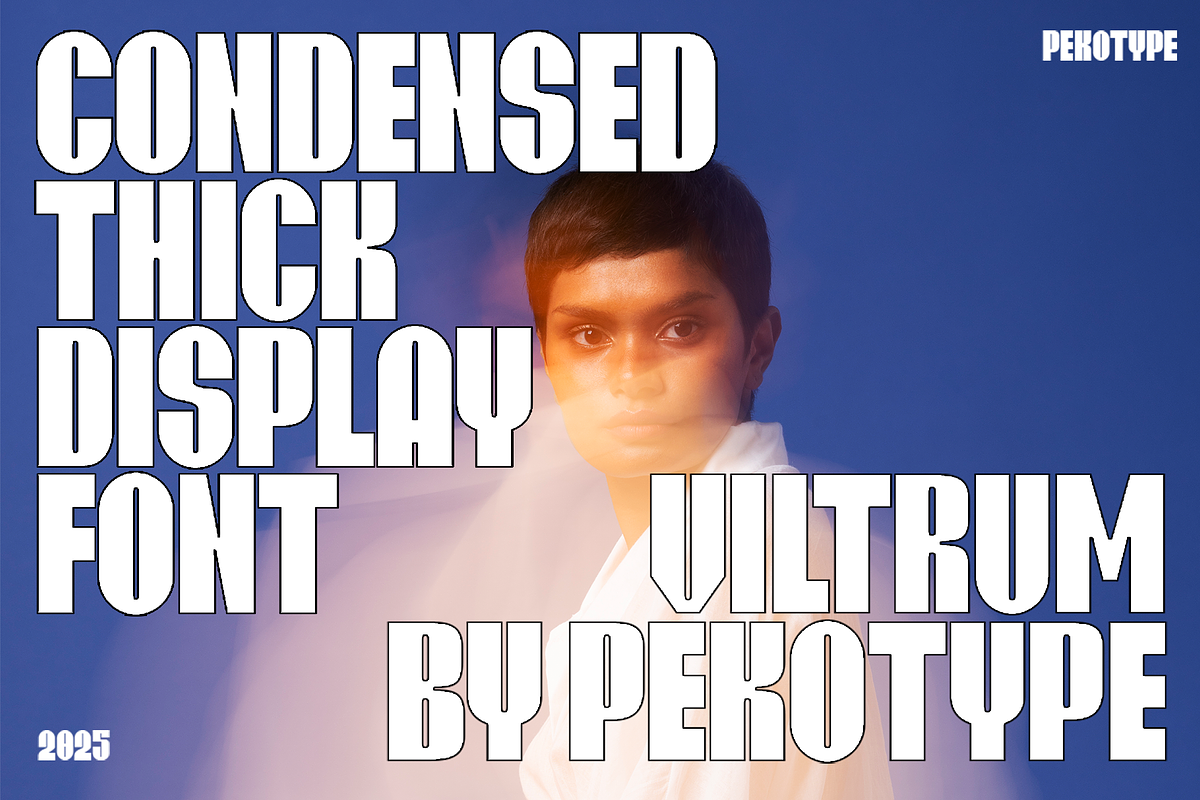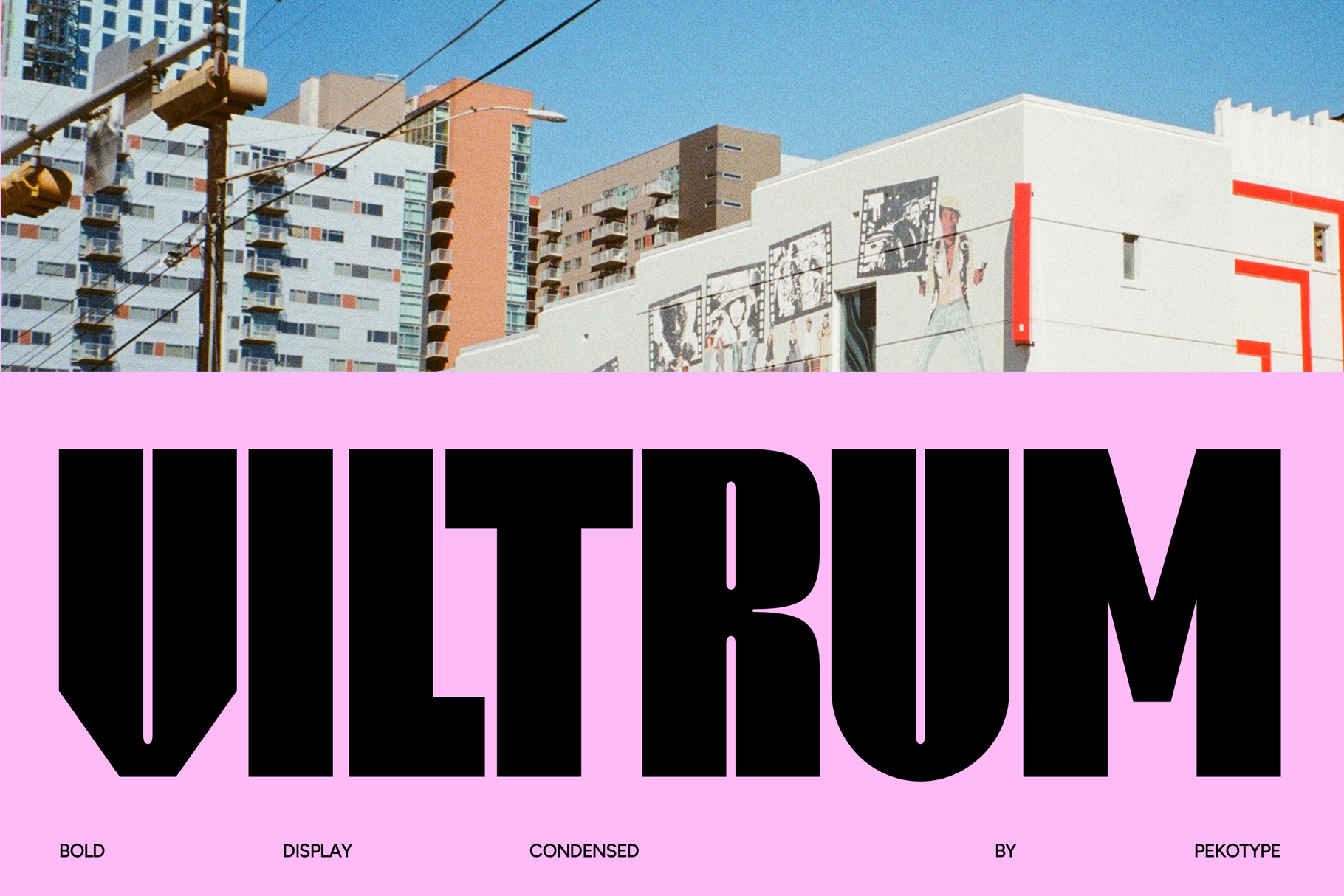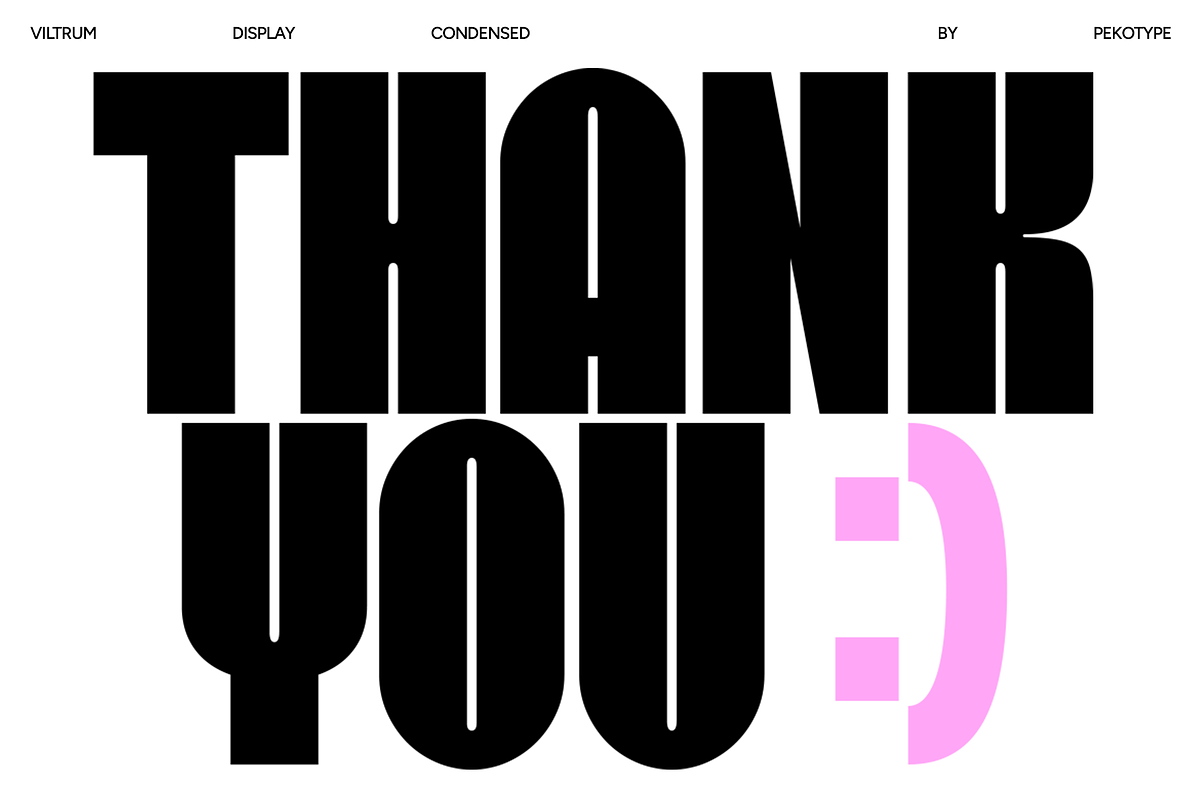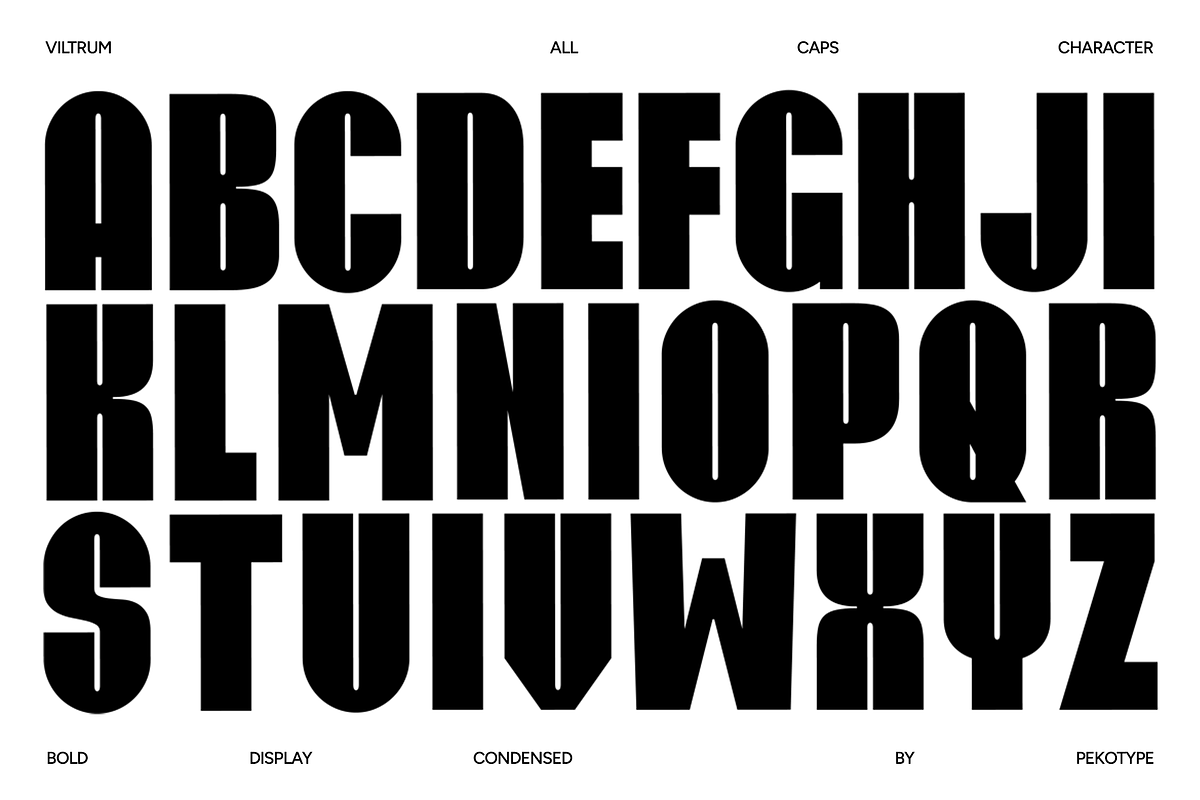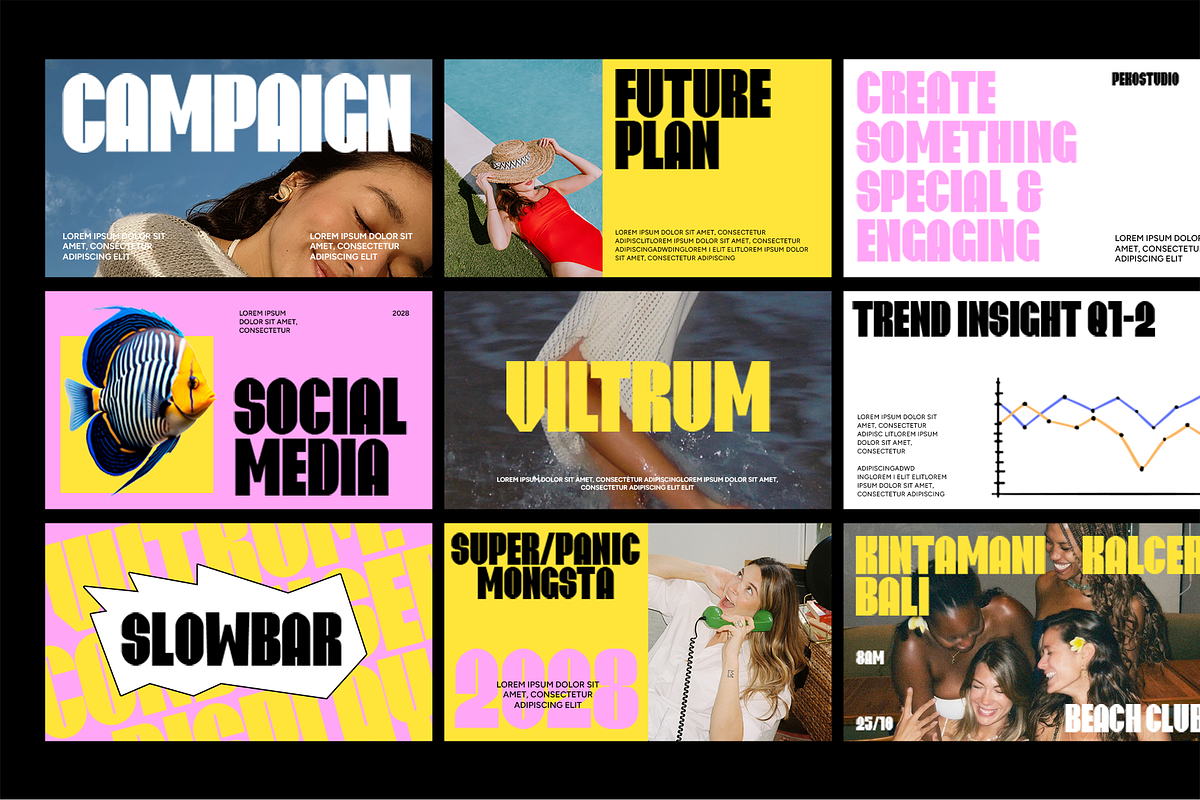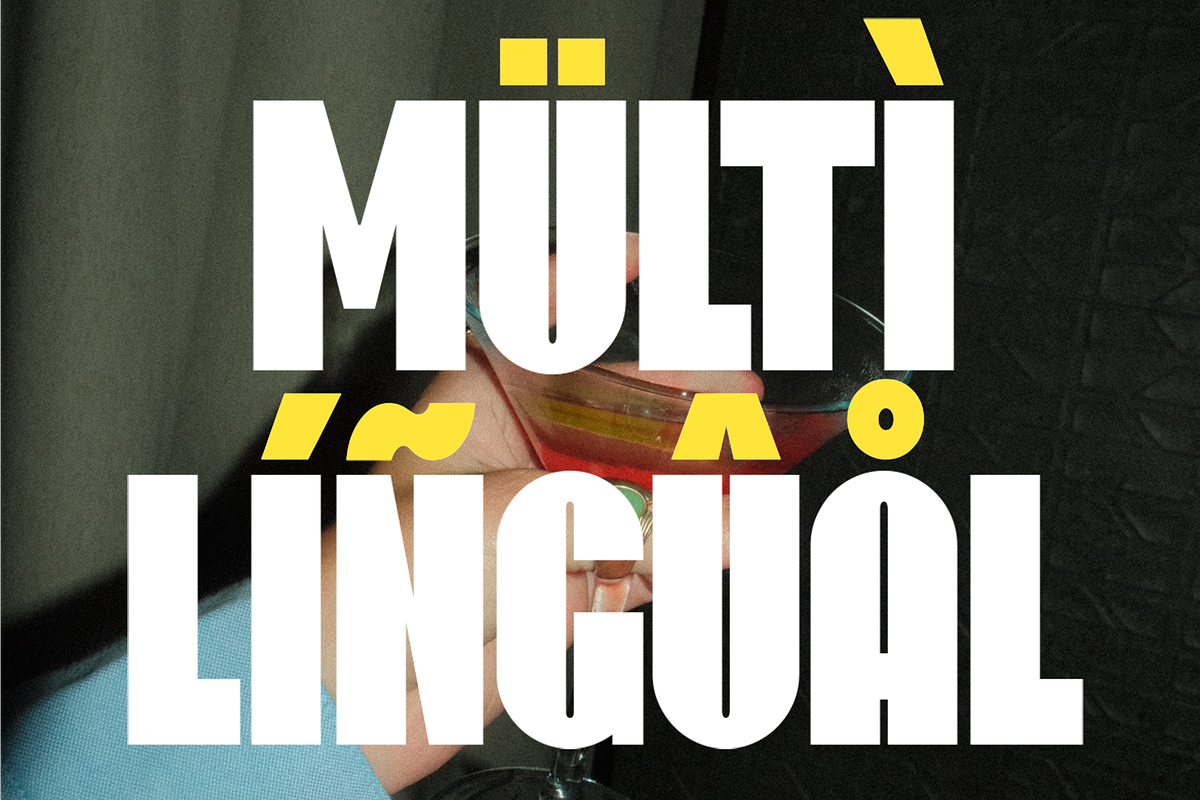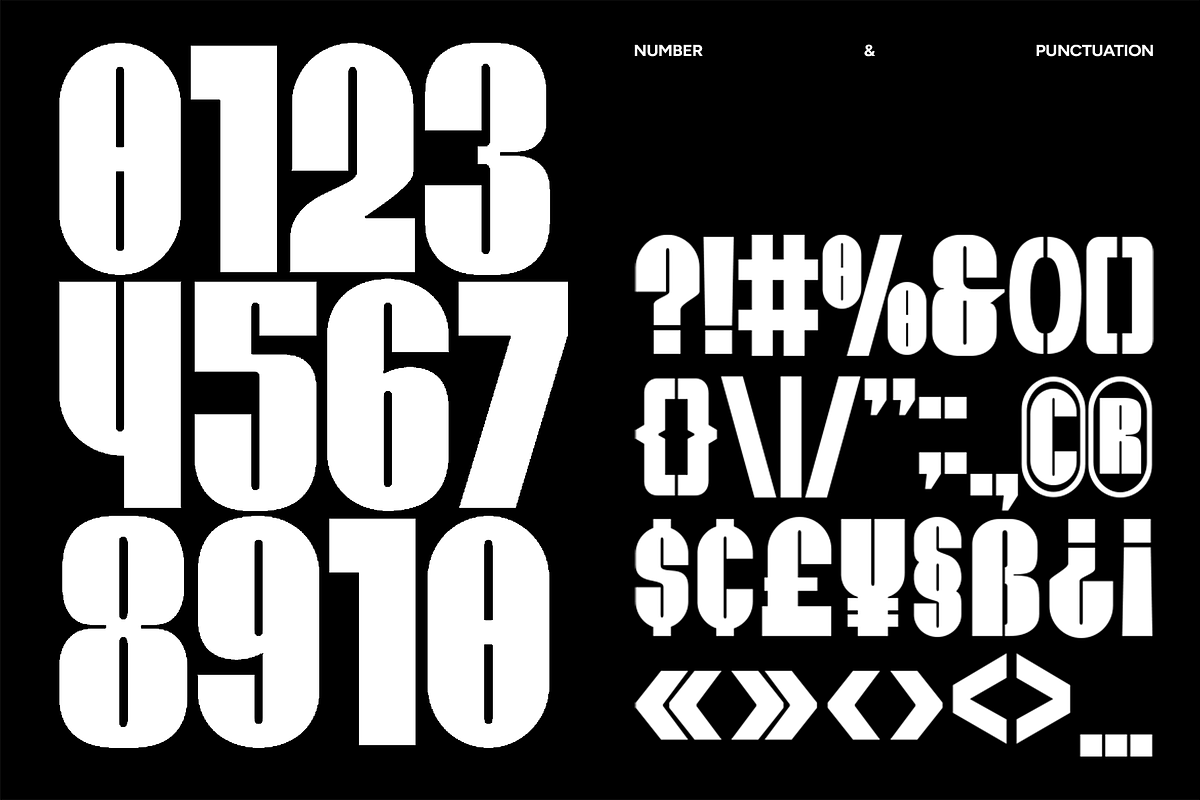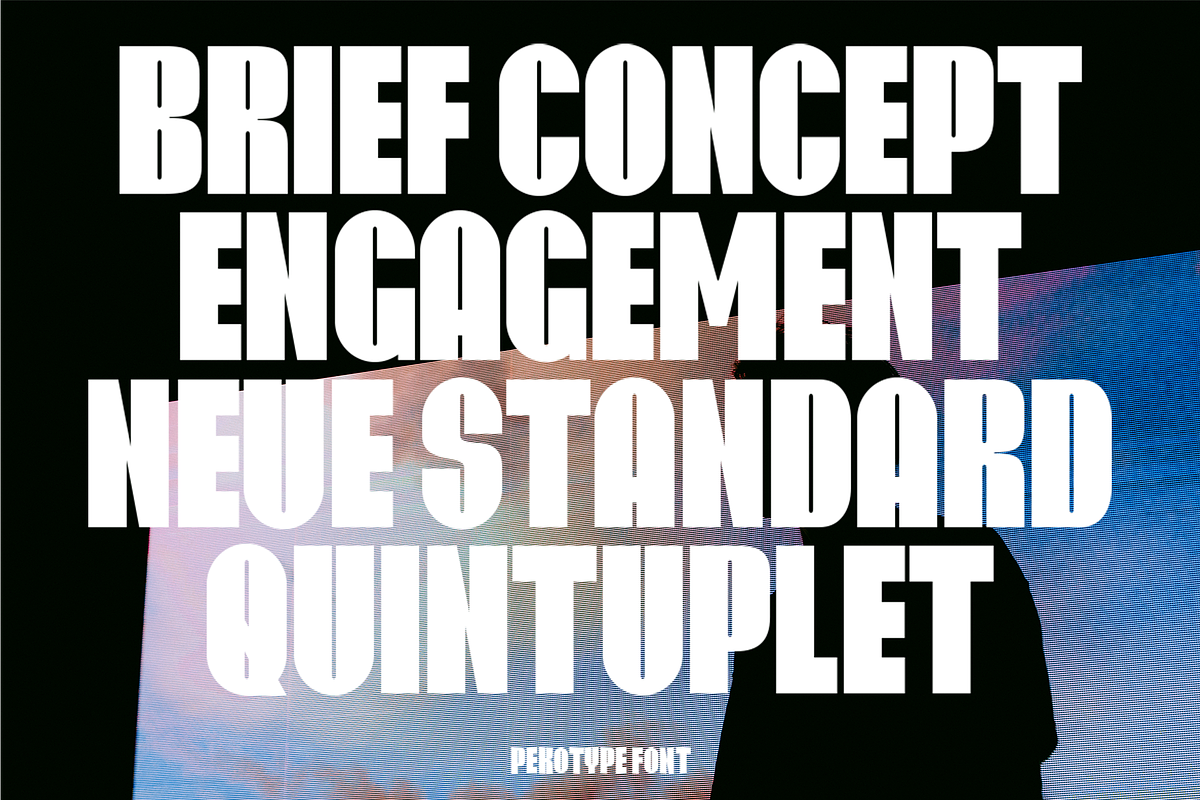
VILTRUM - Super Bold Condensed Font
Introducing VILTRUM – Condensed Thick Display Font VILTRUM is a bold all caps condensed font designed to make a powerful visual impact. With its thick strokes, modern condensed style, and striking display design, this font is perfect for projects that demand attention and strong branding.
Ideal for logos, posters, headlines, packaging, marketing campaigns, and social media content, VILTRUM delivers a clean yet bold statement that elevates any design. Its all caps format ensures consistency and impact, making it a great choice for both creative and professional projects.
Whether you’re working on fashion branding, music covers, product packaging, or digital promotions, VILTRUM provides a strong and versatile typographic solution. If you’re searching for a condensed bold display font that combines modern aesthetics with maximum readability, VILTRUM is the perfect choice.
- All-Caps Font
- Number, Symbol, & Punctuation